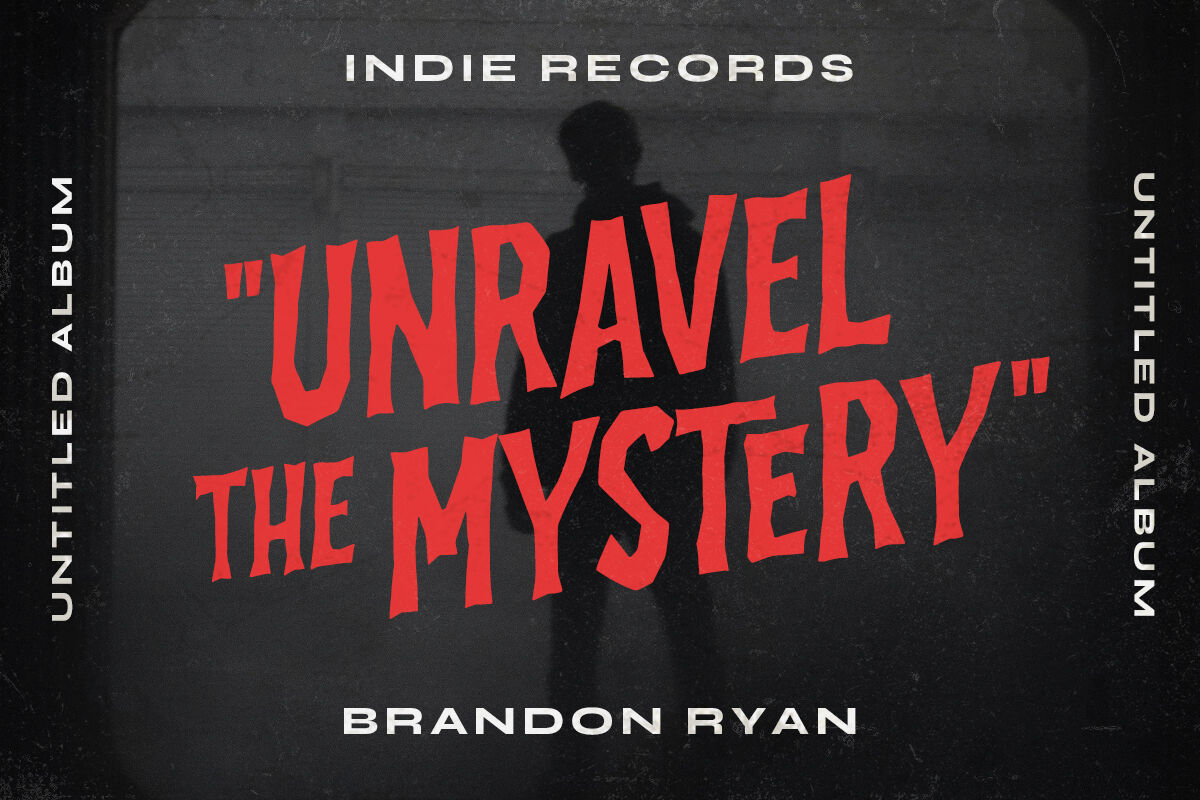
Deadlamp - Horror Display Font
Unveil the depths of terror and embrace the macabre with our latest font creation, Deadlamp – a hauntingly mesmerizing horror display font that beckons to the shadows. Prepare to embark on a spine-tingling journey into the darkest realms of design, where fear and fascination intertwine. Features : uppercase & lowercase numbers and punctuation multilingual alternates/ligatures PUA encoded We highly recommend using a program that supports OpenType features and Glyphs panels like many of Adobe apps and Corel Draw, so you can see and access all Glyph variations. Email us to  if you need something! Happy Designing!